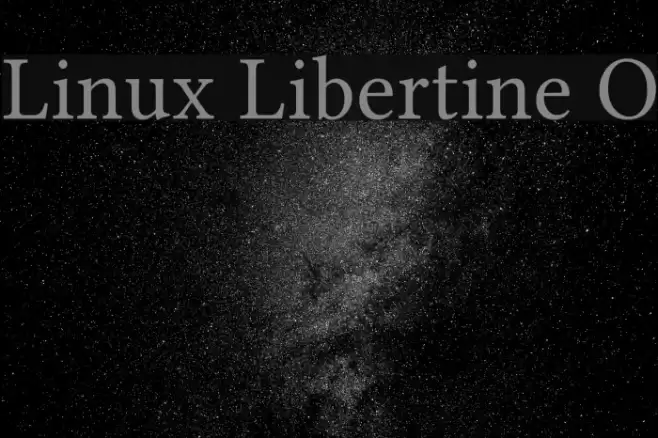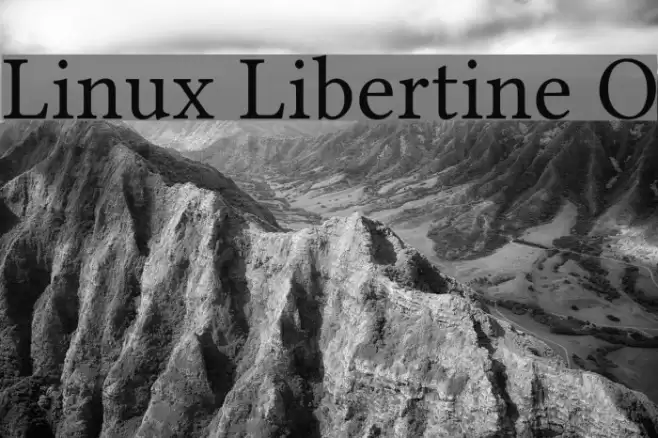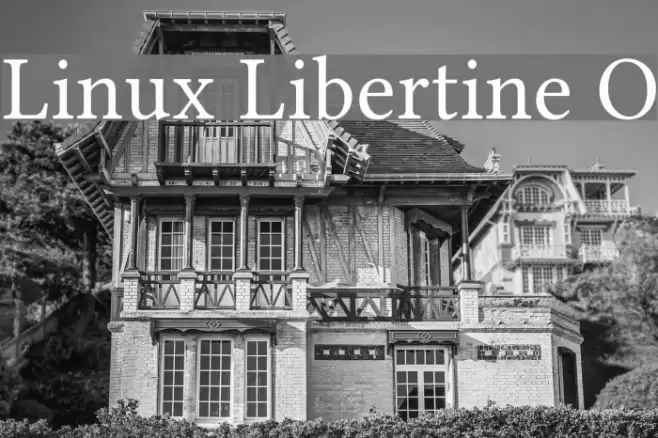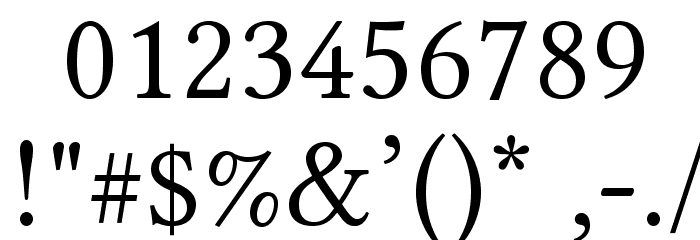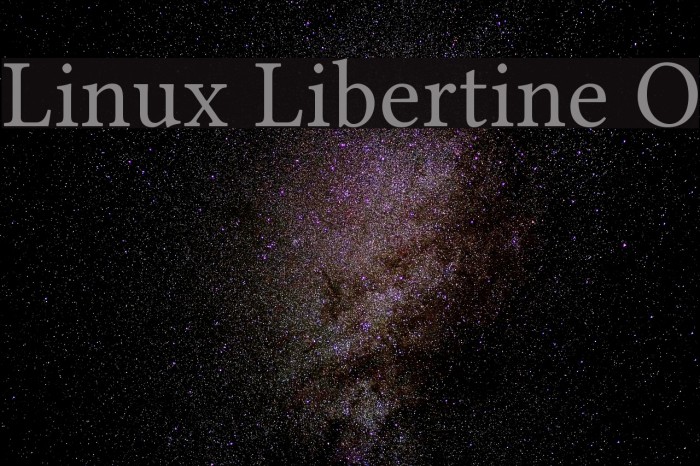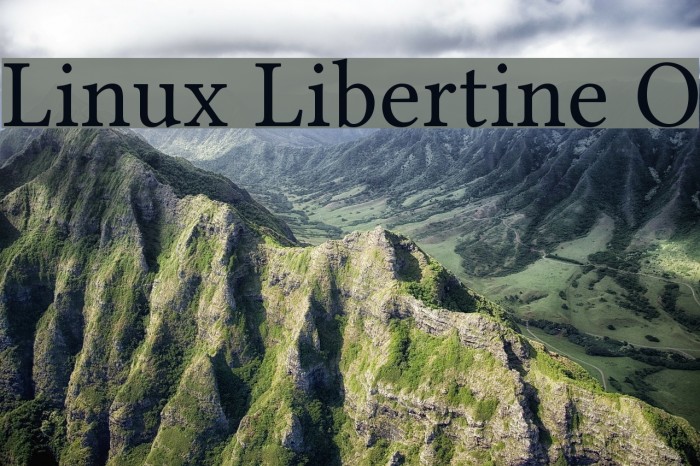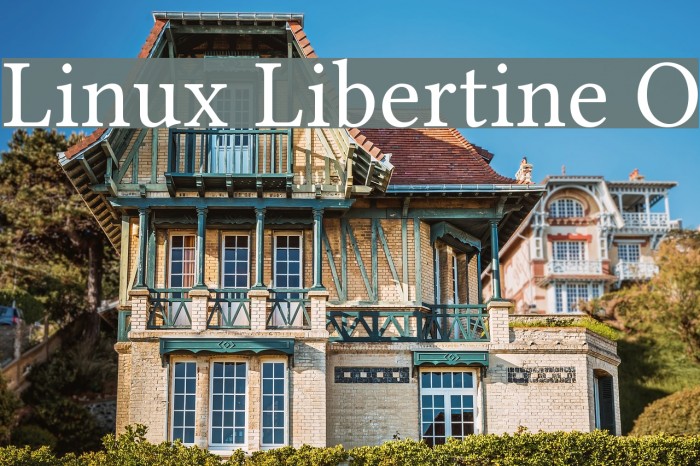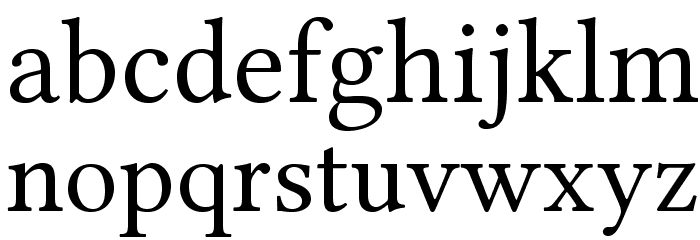
Linux Libertine O Font
Linux Libertine O Description
This font features a classic serif design with a balanced and elegant appearance. The characters are well-proportioned, with a moderate contrast between thick and thin strokes, giving it a refined and sophisticated look. The serifs are gently curved, adding a touch of softness to the overall structure. The font maintains a traditional style, making it suitable for formal and professional settings. It includes a full set of uppercase and lowercase letters, numerals, and a variety of punctuation marks and special characters. The spacing between characters is normal, ensuring readability and clarity in both print and digital formats.
A classic serif font with elegant proportions and moderate contrast from Uncategorized fonts.
- Proposed Projects: Ideal for book typesetting, academic publications, formal invitations, and corporate branding.
- Overall Style: Classic
- Use Case: Body text, Headlines